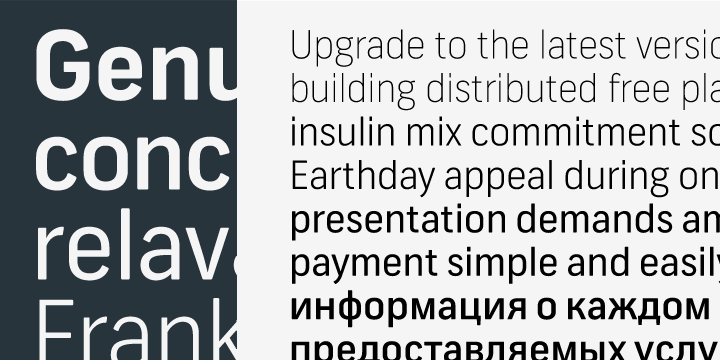
Miles Newlyn has teamed up with Francesca Bolognini, type design’s rising humanist, to create Frank, a new typeface available in five weights, with true italics and Cyrillic. The product of Newlyn’s extensive experience and sensitivity toward the needs of modern business, the family was conceived to accurately communicate care, order and ability.
Frank is suitable for a variety of applications including finance, technology, healthcare and communications.